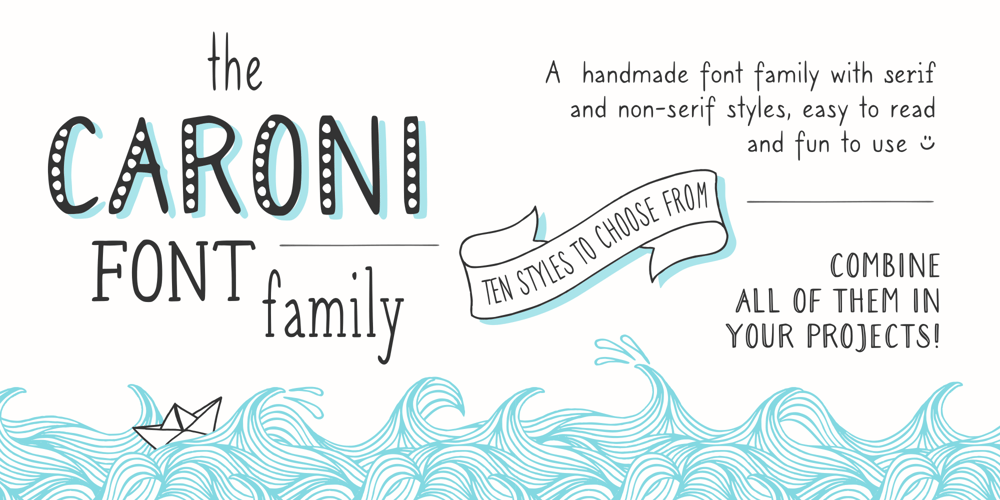
Caroni Font Family was designed by Franzi Paetzold and published by Franzi draws. Caroni contains 18 styles and family package options. Caroni is a cute handmade typeface, which was originally created in 2018 as a free font. It has a simple and clean look, and works great for longer texts. Caroni has already been used in numerous children’s books, so now it was time to extend Caroni’s look, and add more styles. The Caroni Family at a glanceIf you like Caroni, you will love the Caroni font family! Caroni now comes in bold and italic, and it has nine awesome siblings: Avenue (all dressed up with stylish serif strokes) Lime (the skinny version of Caroni) Avenue Lime (the skinny version of Caroni Avenue) Tabanca (dark and heavy, this is Caroni’s brush version) Doubles (enhanced with fine lines) Fete (with fun little dots) Coconut (Caroni’s outline style) Soursop (Outline with dots, a great display font) Carnival (a quirky and fun all-caps version) Caroni was created while staying with a friend in Trinidad, hence the names :)Languages supported:Afrikaans, Albanian, Asu, Basque, Bemba, Bena, Bosnian, Catalan, Cebuano, Chiga, Colognian, Cornish, Corsican, Croatian, Czech, Danish, Dutch, English, Estonian, Faroese, Filipino, Finnish, French, Friulian, Galician, Ganda, German, Gusii, Hungarian, Icelandic, Ido, Inari Sami, Indonesian, Interlingua, Irish, Italian, Javanese, Jju, Jola-Fonyi, Kabuverdianu, Kalenjin, Kinyarwanda, Kurdish, Latvian, Lithuanian, Lojban, Low German, Lower Sorbian, Luo, Luxembourgish, Luyia, Machame, Makhuwa-Meetto, Makonde, Malagasy, Malay, Maltese, Manx, Maori, Morisyen, North Ndebele, Northern Sami, Northern Sotho, Norwegian Bokmål, Norwegian Nynorsk, Nyanja, Nyankole, Occitan, Oromo, Polish, Portuguese, Romanian, Romansh, Rombo, Rundi, Rwa, Samburu, Sango, Sangu, Sardinian, Scottish Gaelic, Sena, Shambala, Shona, Slovak, Slovenian, Soga, Somali, South Ndebele, Southern Sotho, Spanish, Swahili, Swati, Swedish, Swiss German, Taita, Taroko, Teso, Tsonga, Tswana, Turkish, Turkmen, Upper Sorbian, Vunjo, Walloon, Welsh, Western Frisian, Wolof, Xhosa, Zulu